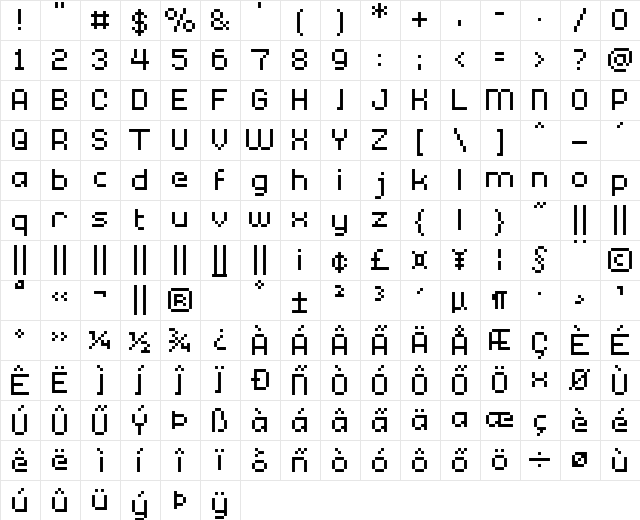
PF Nova Regular
Design Context for PF Nova Typeface
PF Nova takes a measured approach to typography — its balanced proportions and neutral character make it a reliable workhorse for both digital and print work.